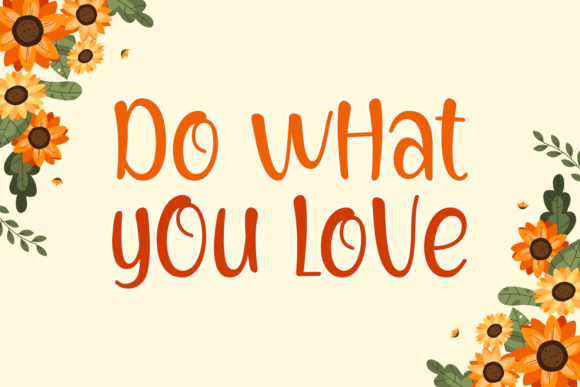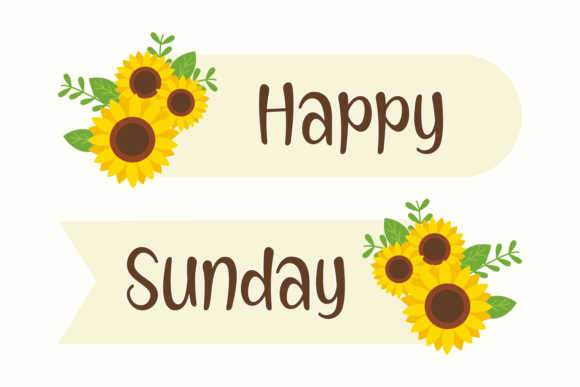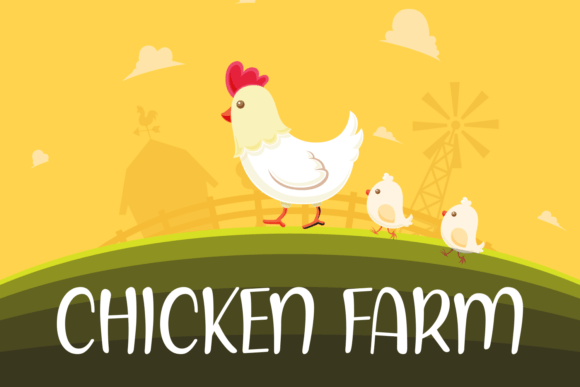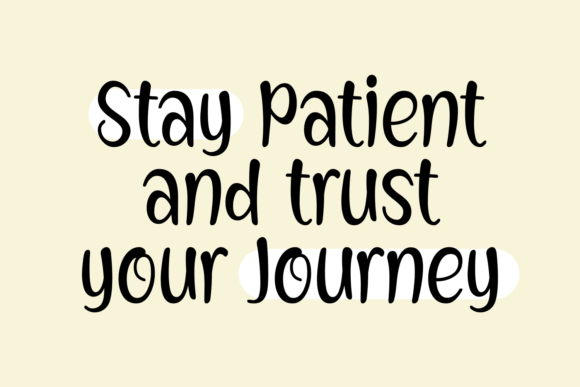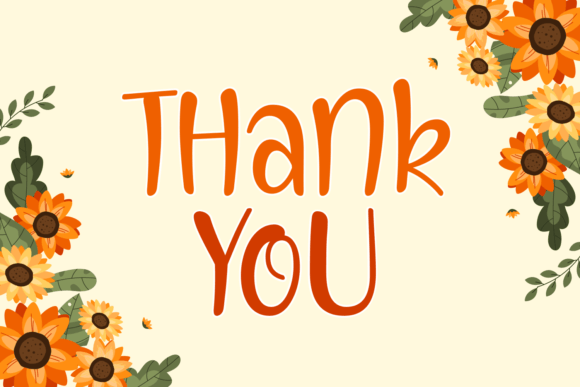
Unlock the Whimsy of Your Creative Projects
Have you ever been in the midst of a creative session, surrounded by scraps of paper, paint swatches, and scattered ideas? You’re brainstorming the perfect concept for a DIY project, a social media post, or a heartfelt letter, and suddenly, the right font pops into your head. For many designers, the right font can make all the difference between an ordinary piece and a true masterpiece.
That’s where Beautifully Sunflower Font comes in – a charming, handwritten font that exudes warmth and friendliness. Whether you’re crafting a custom Instagram post or a heartfelt birthday card, this font is sure to turn your ideas into a work of art. With its unique, quirky style, Beautifully Sunflower Font is a valuable addition to any designer’s toolkit, offering endless possibilities for creative expression.
Beautifully Sunflower Font Key Features
- Font Family: Beautifully Sunflower
- Unique Characteristics: Unique, hand-drawn design with a warm, sunny feel; 900 glyphs, including Latin, Greek, and Cyrillic alphabets
Designer Review: Beautifully Sunflower Font
As a designer, I’ve had the pleasure of working with many fonts, but the Beautifully Sunflower Font is definitely one that stands out. Here’s my honest review: ✨
- The Beautifully Sunflower Font is a true delight for anyone looking for a cheerful and whimsical font. The font’s unique design elements and vibrant color palette make it perfect for projects that need a touch of sunshine.
- Another aspect that I appreciate is the font’s versatility. It can be used for a wide range of applications, from titles and headings to body text, and even for logos and branding.
While the Beautifully Sunflower Font is a great choice for many projects, there are a few limitations to keep in mind: ⚠️
- One of the main limitations is that the font may not be the best choice for formal or professional projects. Its playful and whimsical nature may not be suitable for serious or technical content.
- Another limitation is that the font may not be as legible in smaller font sizes. Designers may need to adjust the font size or use a bold version to ensure that the text remains readable.
Overall, I’m impressed with the Beautifully Sunflower Font, and I would highly recommend it for projects that need a touch of fun and whimsy. With its unique design, versatility, and compatibility, it’s a great choice for designers who want to add some personality to their work.
The Beautifully Sunflower Font is ideal for:
Designing wedding invitations, birthday cards, and other special occasion graphics.
Creating logos, business cards, and other marketing materials.
Adding a touch of elegance and sophistication to your designs.
Use the Beautifully Sunflower Font in combination with other elegant fonts to create a cohesive look.
Use the font in conjunction with high-quality images and graphics to